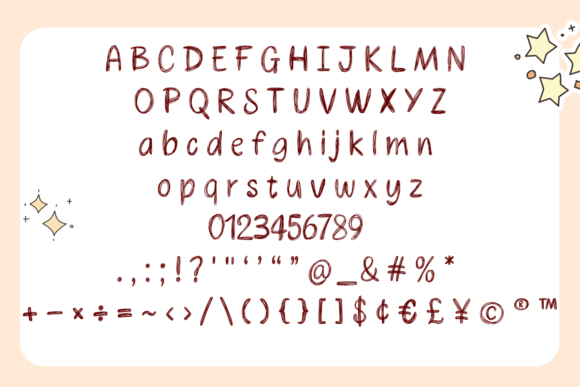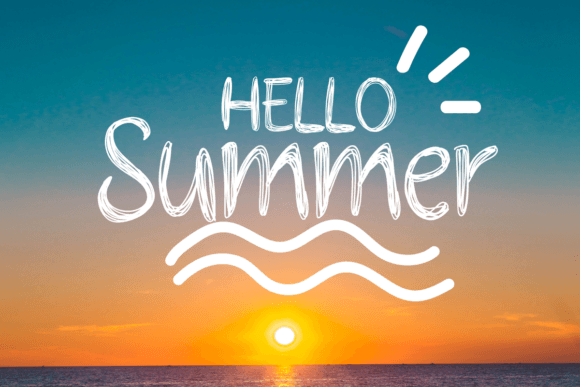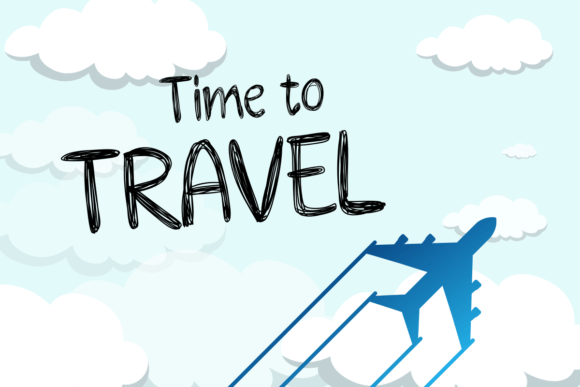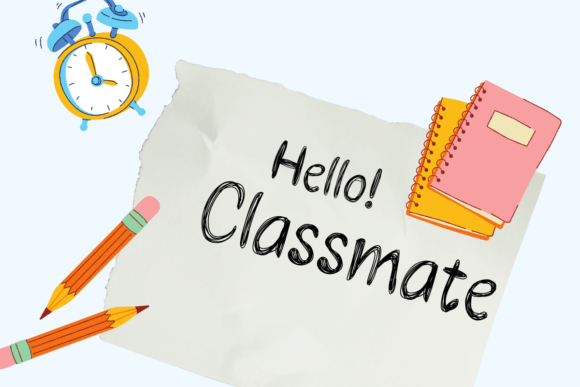
Beryllium Font: The Cute Handwritten Sans Serif for Creative Designs
Are you a designer, crafter, or DIY enthusiast looking for a unique and versatile font to elevate your creative projects? Look no further than Beryllium Font, a charming handwritten sans serif font that’s perfect for a wide range of applications. In this article, we’ll dive into the world of Beryllium Font, exploring its features, uses, and benefits for designers and crafters alike.
What is Beryllium Font?
Beryllium Font is a delightful handwritten sans serif font that’s designed to add a personal touch to your designs. With its clean and simple lines, this font exudes a sense of friendliness and approachability, making it perfect for projects that require a warm and inviting feel.
Features of Beryllium Font
So, what makes Beryllium Font so special? Here are some of its key features:
- Cute and playful design: Beryllium Font boasts a charming, handwritten design that’s sure to capture the hearts of your audience.
- Sans serif style: The font’s sans serif style gives it a clean and modern look that’s perfect for a wide range of applications.
- Highly versatile: Beryllium Font can be used for everything from notes and diaries to greeting cards, banners, and social media posts.
- Easily readable: The font’s clear and simple design ensures that your text is always easy to read, even at small sizes.
Uses for Beryllium Font
The possibilities are endless when it comes to using Beryllium Font. Here are some ideas to get you started:
- Notes and journals: Add a personal touch to your notes and journals with Beryllium Font’s charming design.
- Greeting cards: Create beautiful, one-of-a-kind greeting cards for special occasions like birthdays, holidays, and more.
- Banners and signs: Use Beryllium Font to create eye-catching banners and signs for parties, events, and promotions.
- Social media posts: Add a touch of personality to your social media posts with Beryllium Font’s playful design.
- Mugs, cards, and shirts: Create custom merchandise like mugs, cards, and shirts with Beryllium Font’s unique design.
- Stationery and craft projects: Use Beryllium Font to add a personal touch to your stationery, craft projects, and DIY endeavors.
So, why should designers and crafters choose Beryllium Font for their projects? Here are some benefits:
- Unique and eye-catching designs: Beryllium Font’s charming design is sure to make your projects stand out from the crowd.
- Easy to use: The font’s clean and simple design makes it easy to use, even for those without extensive design experience.
- Highly versatile: Beryllium Font can be used for a wide range of applications, making it a great addition to any design or crafting toolkit.
- Time-saving: With Beryllium Font, you can create beautiful, professional-looking designs in no time.
Tips for Using Beryllium Font
Here are some tips for getting the most out of Beryllium Font:
- Experiment with different colors: Beryllium Font looks great in a variety of colors, so don’t be afraid to experiment and find the perfect hue for your project.
- Mix and match with other fonts: Combine Beryllium Font with other fonts to create unique and eye-catching designs.
- Use it for headlines and body text: Beryllium Font’s clear and simple design makes it perfect for both headlines and body text.
In conclusion, Beryllium Font is a charming handwritten sans serif font that’s perfect for designers, crafters, and DIY enthusiasts. With its cute and playful design, high versatility, and ease of use, Beryllium Font is sure to become a favorite in your design or crafting toolkit. So why wait? Download Beryllium Font today and start creating beautiful, one-of-a-kind designs that are sure to impress!